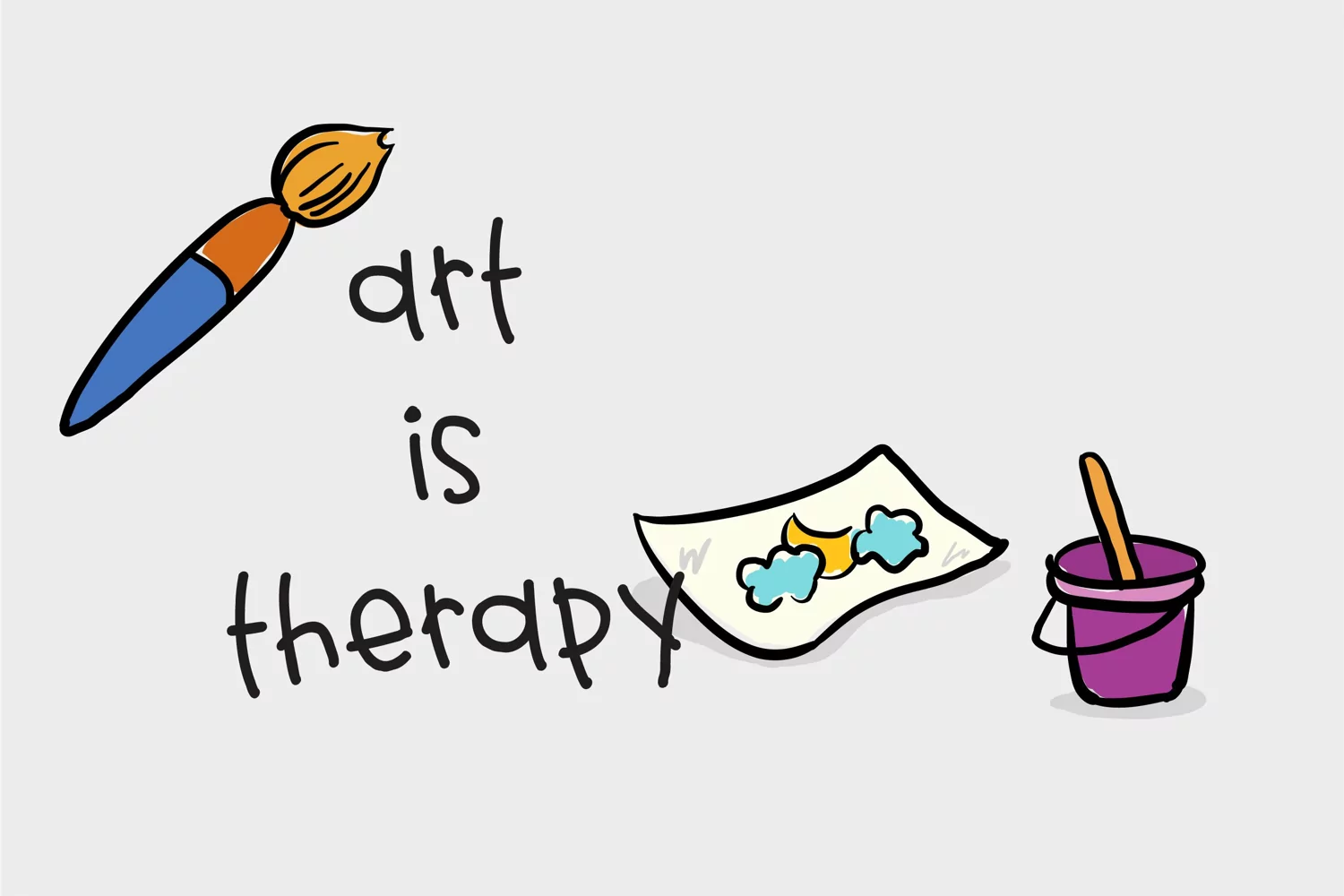
Anklebiter is a youthful and cute handwritten font. Its playful style makes it perfect for any design you can think of. Add it with confidence to your creative projects, and notice how they capture everyone’s attention! Includes regular, bold, and book.